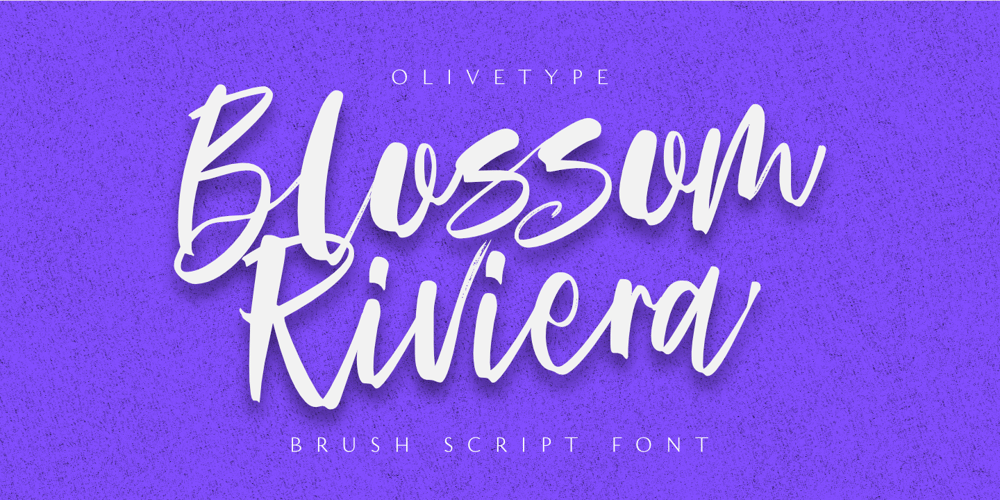
Blossom Riviera
Blossom Riviera font
Blossom Riviera Font Family was designed by Nurul Hidayani and published by Olivetype. Blossom Riviera contains 1 styles and family package options. Blossom Riviera is the perfect brush script font for giving your projects a natural, handmade feel. With its cool, awesome texture, it’s perfect for creating beautiful, unique logos and headlines.So what’s included : Standard Latin Numbers, symbols, punctuations and ligatures Multilingual Support. PUA Encoded and fully accessible without additional design software Simple Installations Works on PC & Mac Thank You!